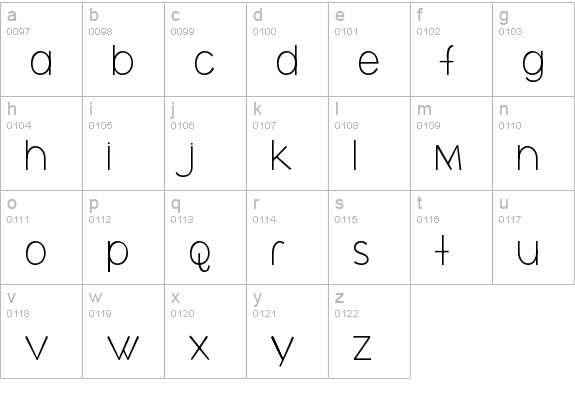
Cafe & Brewery 2.0 Font is the epitome of modernity and style. With its sleek lines and sophisticated design, this font is perfect for adding a touch of elegance to any project. Whether you are creating a logo for a trendy cafe or designing a menu for a craft brewery, Cafe & Brewery 2.0 Font will effortlessly elevate your design to the next level. But what sets this font apart from the rest is its incredible versatility. Not only is it suitable for cafe and brewery-related designs, but it can also be used in a variety of other creative projects. From fashion branding to magazine layouts, this font will bring a sense of sophistication and refinement to any design. One of the best things about Cafe & Brewery 2.0 Font is that it is freely available to download at FontsMarket.com. This means that you can add this stunning font to your collection without any cost. So, whether you are a professional designer or a hobbyist, you can access this font and use it to create stunning visuals. The designers behind Cafe & Brewery 2.0 Font have paid meticulous attention to detail, ensuring that each letter and character is perfectly crafted. The result is a font that is not only visually appealing but also highly legible. No matter the size or format of your design, Cafe & Brewery 2.0 Font will maintain its clarity and readability. In addition to its aesthetic appeal, Cafe & Brewery 2.0 Font also offers a wide range of options. With multiple weights and styles, you can easily customize the font to suit your specific needs. Whether you want a bold and impactful headline or a subtle and elegant body text, Cafe & Brewery 2.0 Font has got you covered. So, why settle for ordinary fonts when you can have the extraordinary? Download Cafe & Brewery 2.0 Font today from FontsMarket.com and elevate your designs to new heights. Whether you are a professional designer or a passionate hobbyist, this font will undoubtedly become a valuable asset in your creative arsenal. Don't miss out on this opportunity to add a touch of elegance and sophistication to your designs, all for free.